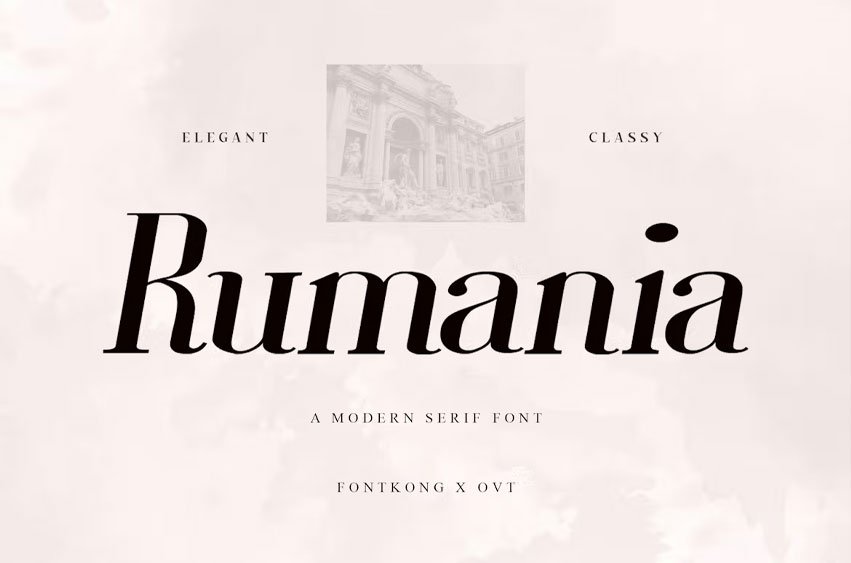
Rumania Font Modern Serif Font. Introducing “Rumania,” a modern serif font that blends contemporary design with the timeless elegance of serif typography. Perfect for a wide range of applications, from cutting-edge branding projects to stylish editorial work, Rumania offers a fresh perspective on traditional serif fonts.
Rumania features sleek, refined serifs and a balanced structure, providing excellent legibility and a sophisticated aesthetic. This font is especially suited for creating compelling headlines, elegant print publications, and impactful digital content. It includes a full set of uppercase and lowercase letters, numerals, punctuation, and extensive language support, ensuring its versatility across diverse design needs and global markets.
Whether you’re developing the visual identity for a new startup, crafting the layout for a fashion magazine, or designing engaging web interfaces, Rumania delivers a touch of modern elegance that enhances the overall quality and appeal of your projects.
Rumania is your go-to modern serif font for achieving a harmonious blend of style and functionality in your typographic creations.